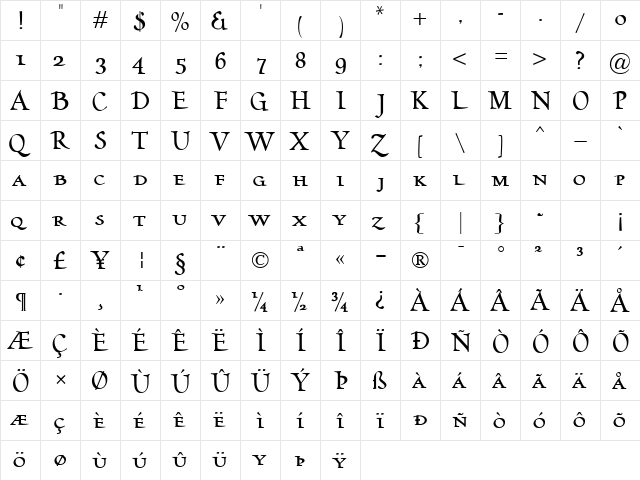
Humana SmallCaps Regular
Design Context for Humana SmallCaps Typeface
Humana SmallCaps offers clean, dependable letterforms without strong stylistic allegiance, making it a practical choice for designers who need flexibility.